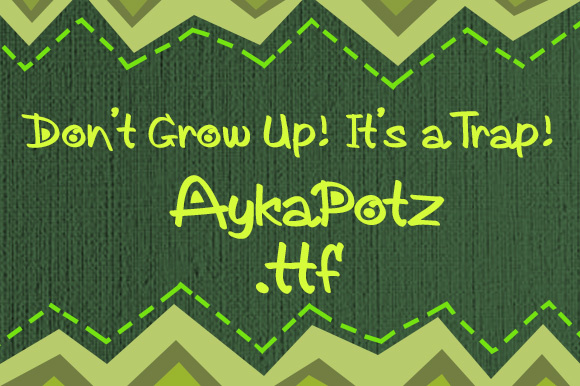
AykaPotz Font: The Perfect Addition to Your Whimsical Designs
Are you a designer or crafter looking for a font that can add a touch of playfulness and whimsy to your projects? Look no further than AykaPotz Font! This fun display font is perfect for use in lighthearted and imaginative designs, and is sure to bring a smile to your audience’s faces.
What is AykaPotz Font?
AykaPotz Font is a handwritten font that is designed to evoke a sense of fun and playfulness. Its unique and quirky style makes it perfect for use in children’s themes, and can give your projects a relaxed and carefree feel. Whether you’re working on a project for kids or simply want to add a touch of whimsy to your design, AykaPotz Font is the perfect choice.
Characteristics of AykaPotz Font
AykaPotz Font has a number of characteristics that make it stand out from other fonts. Some of its key features include:
- Handwritten style: AykaPotz Font has a unique, handwritten style that gives it a personal and playful feel.
- Fun and quirky: This font is designed to be fun and quirky, making it perfect for use in lighthearted and imaginative designs.
- Perfect for children’s themes: AykaPotz Font is ideal for use in children’s themes, and can help to create a sense of wonder and excitement.
- Relaxed and carefree feel: This font can give your projects a relaxed and carefree feel, making it perfect for use in designs that need to evoke a sense of fun and playfulness.
Uses for AykaPotz Font
AykaPotz Font is a versatile font that can be used in a wide range of projects. Some of the most popular uses for this font include:
- Children’s party invitations: AykaPotz Font is perfect for use in children’s party invitations, and can help to create a sense of excitement and anticipation.
- Kids’ crafts and activities: This font is ideal for use in kids’ crafts and activities, and can help to add a touch of fun and playfulness to your projects.
- Playful posters and signs: AykaPotz Font can be used to create playful posters and signs that are sure to grab attention and bring a smile to people’s faces.
- Whimsical branding and packaging: This font can be used to create whimsical branding and packaging that is sure to stand out from the crowd.
Tips for Using AykaPotz Font
Here are a few tips for using AykaPotz Font in your designs:
- Use it sparingly: AykaPotz Font is a bold and playful font, so it’s best to use it sparingly to avoid overwhelming your design.
- Pair it with other fonts: This font pairs well with other fonts, so don’t be afraid to experiment with different combinations to find the perfect look for your project.
- Experiment with colors and textures: AykaPotz Font looks great in a variety of colors and textures, so don’t be afraid to get creative and try out different options.
AykaPotz Font is a fun and playful font that is perfect for use in lighthearted and imaginative designs. Its unique and quirky style makes it ideal for use in children’s themes, and can give your projects a relaxed and carefree feel. Whether you’re a designer or crafter, AykaPotz Font is sure to become a favorite in your font collection.
Overall, AykaPotz Font is a fun and playful font that is perfect for use in a wide range of designs. Its unique and quirky style makes it ideal for use in children’s themes, and can give your projects a relaxed and carefree feel. So why not give AykaPotz Font a try today and see how it can add a touch of whimsy and playfulness to your designs?